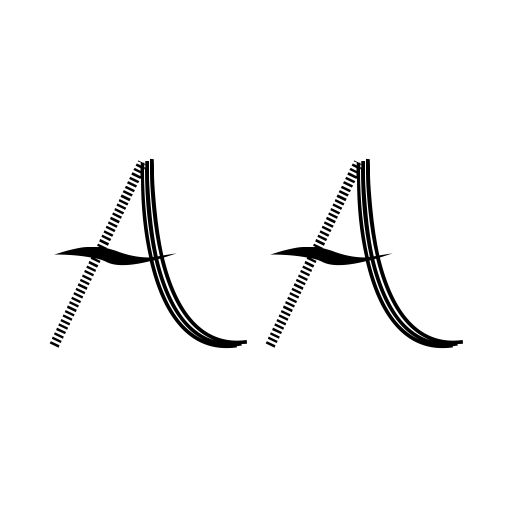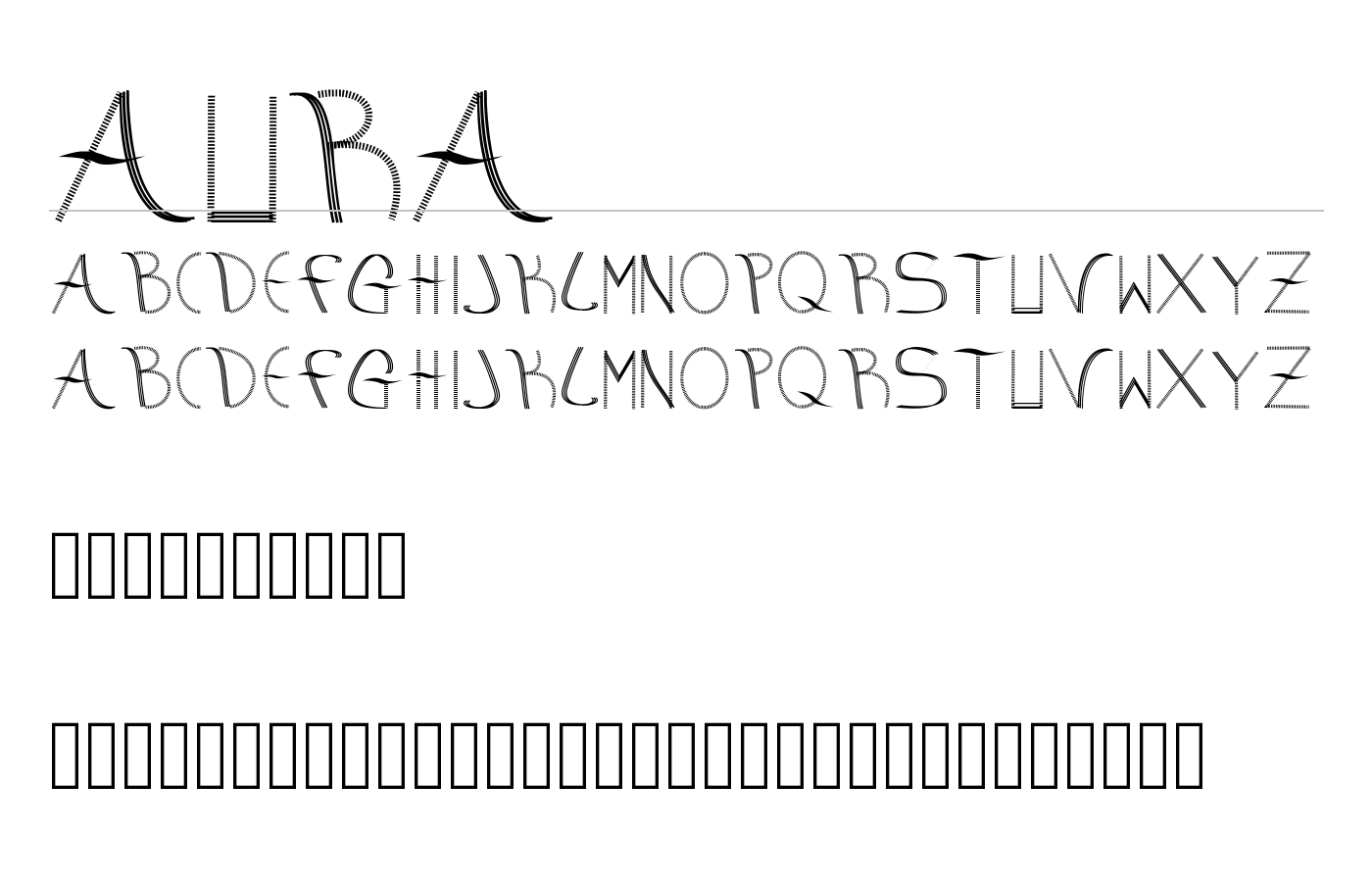
Aura is a delicate serif typeface with a decorative, artistic flair characterized by thin, varying line strokes that create an elegant, airy feel. Its tall, narrow letterforms combined with fine details and gentle curves give it a sophisticated and refined personality, making it ideal for luxury branding, high-end editorial headlines, and creative logo designs. This font stands out with its unique, almost handwritten qualities that add a distinctive charm suited for upscale and stylish visual projects.
aura Font
About aura Font